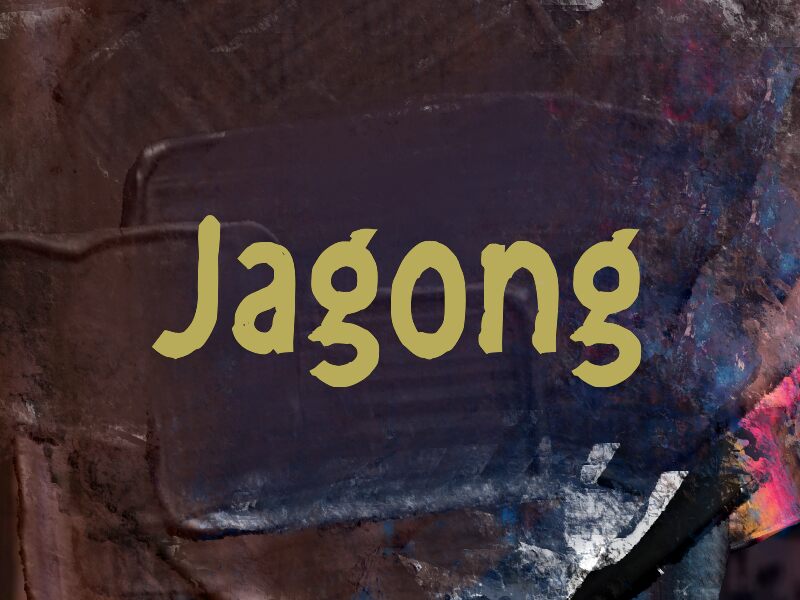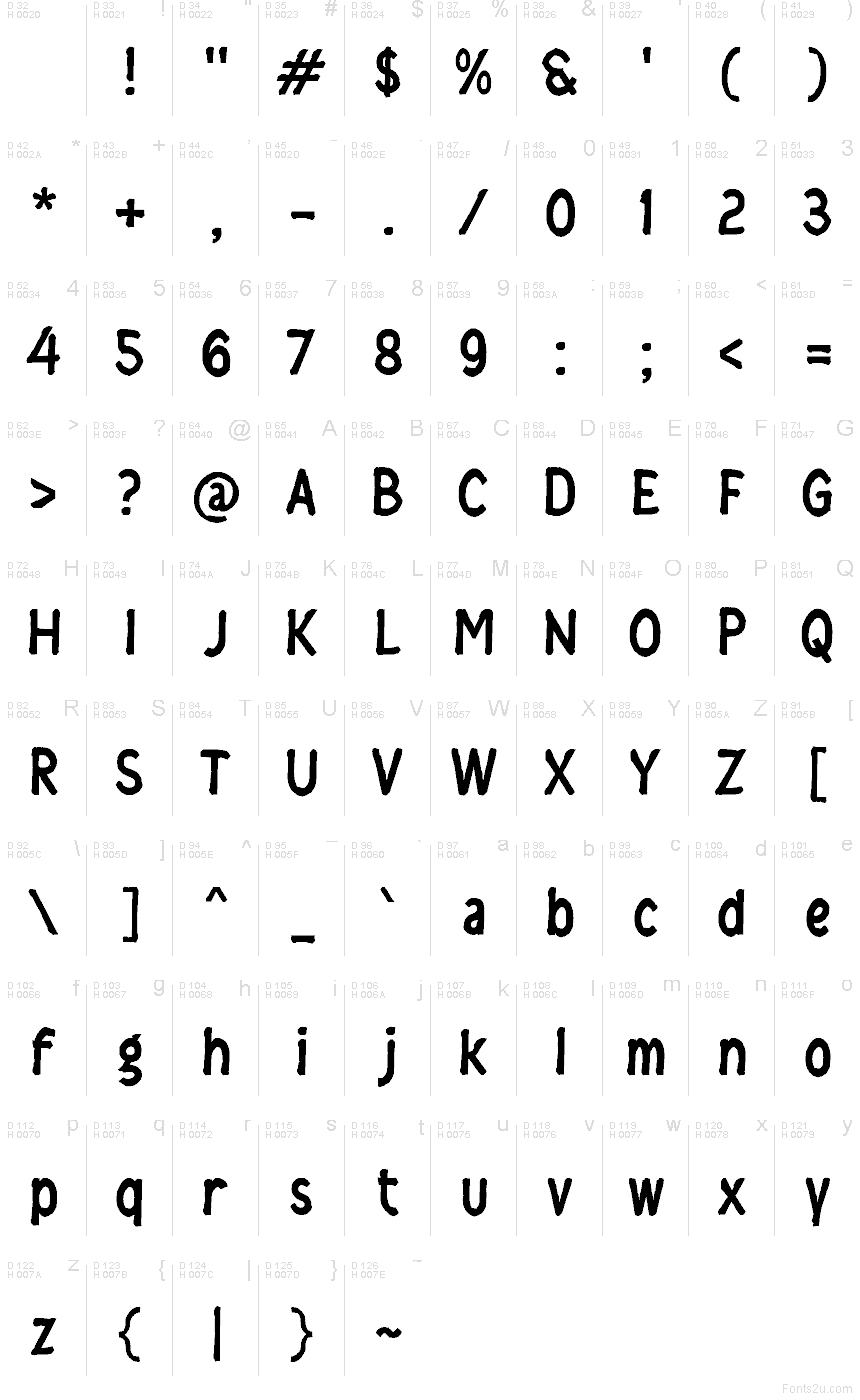
Jagong font by wep is a free eroded display typeface with chunky, inky letters that look like they’ve been stamped a few too many times. The shapes are rounded but rough, with edges that crumble and bleed just enough to feel raw and handmade. There’s a loose, offbeat rhythm in the spacing that keeps every word feeling loud, messy, and alive.
Using Jagong, headlines hit with the energy of a photocopied zine or a basement gig flyer. This free font shines on album covers, horror or punk titles, protest posters, experimental branding, and gritty social graphics. Keep Jagong big and bold, then pair it with a clean geometric sans for body text to let its chaotic texture really stand out.
Jagong